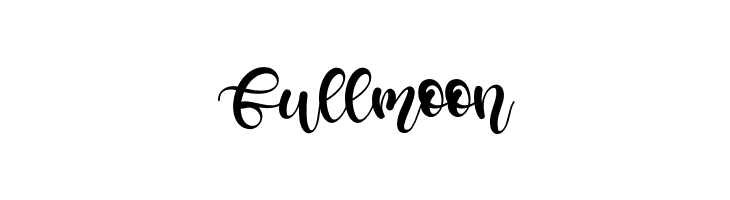
A bold, brush-style italic font with dynamic, hand-drawn strokes.
A playful and artistic script font with fluid, cursive strokes and elegant loops.
A dynamic, cursive font with fluid, expressive strokes.